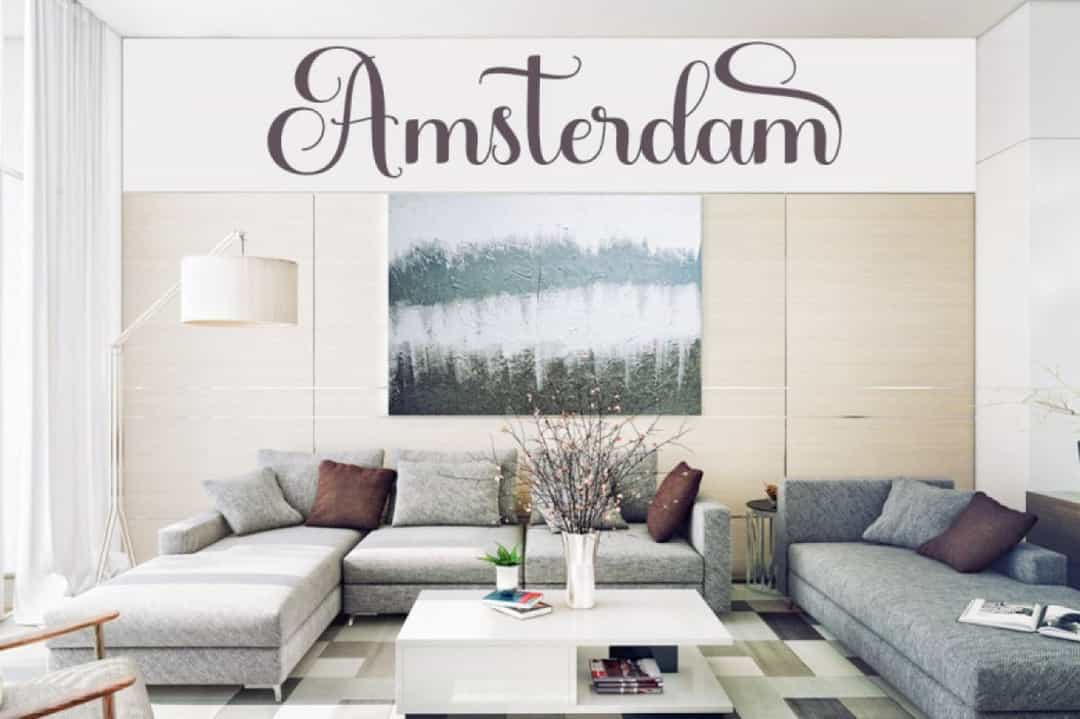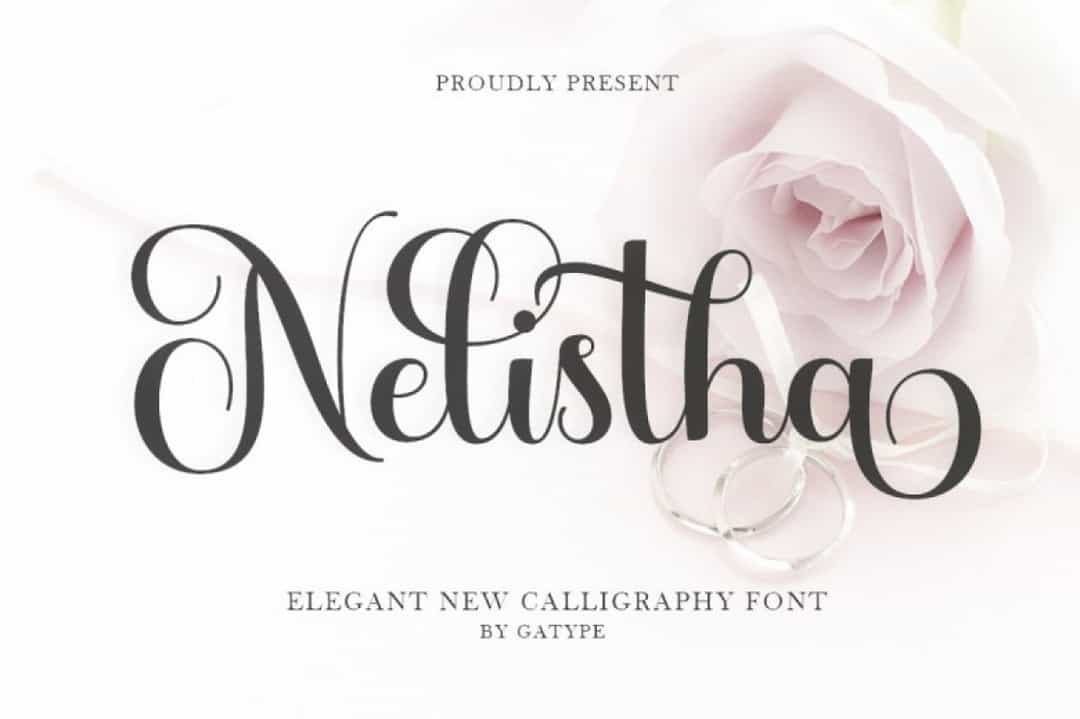
Nelistha is a beautiful and modern calligraphy font designed with elegance in mind, boasting lower and upper cases as well as symbols for multilingual languages, punctuation numbers, alternative and ligatures. Designed in Modern Elegant style it makes an excellent addition to logos, branding invitations, masterheads, etc.